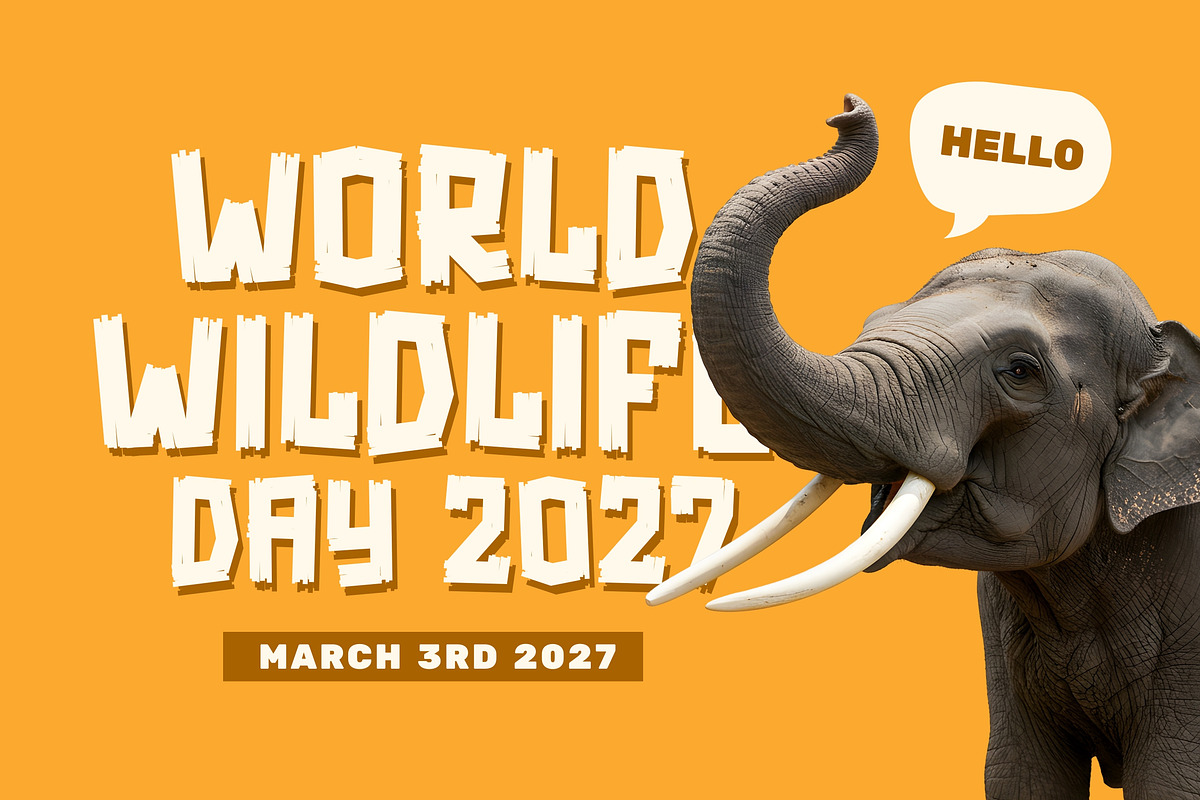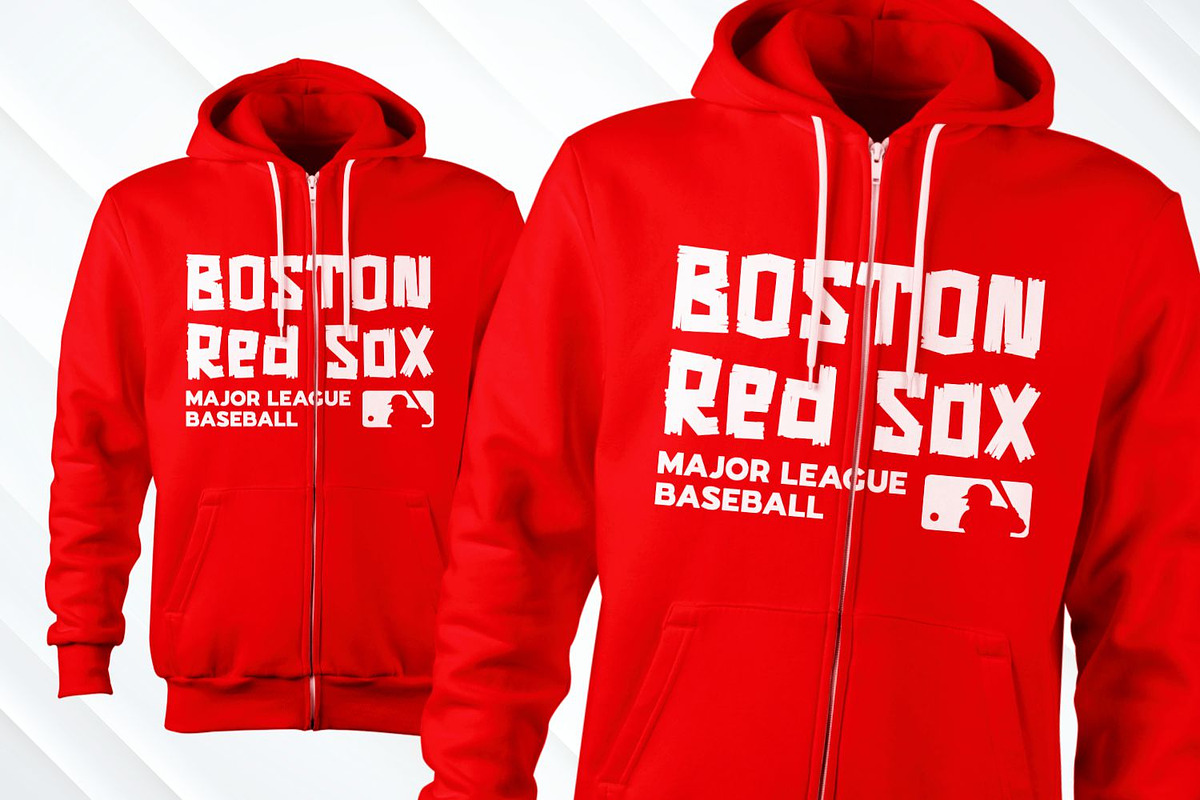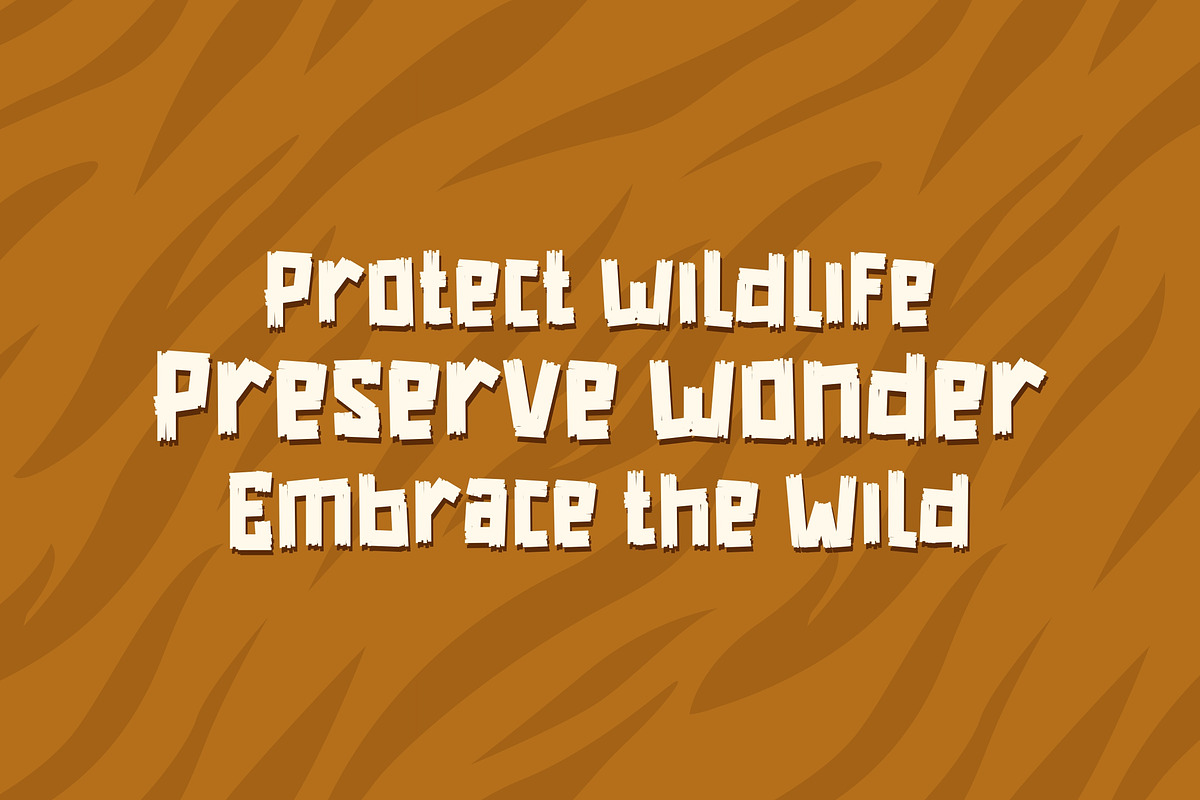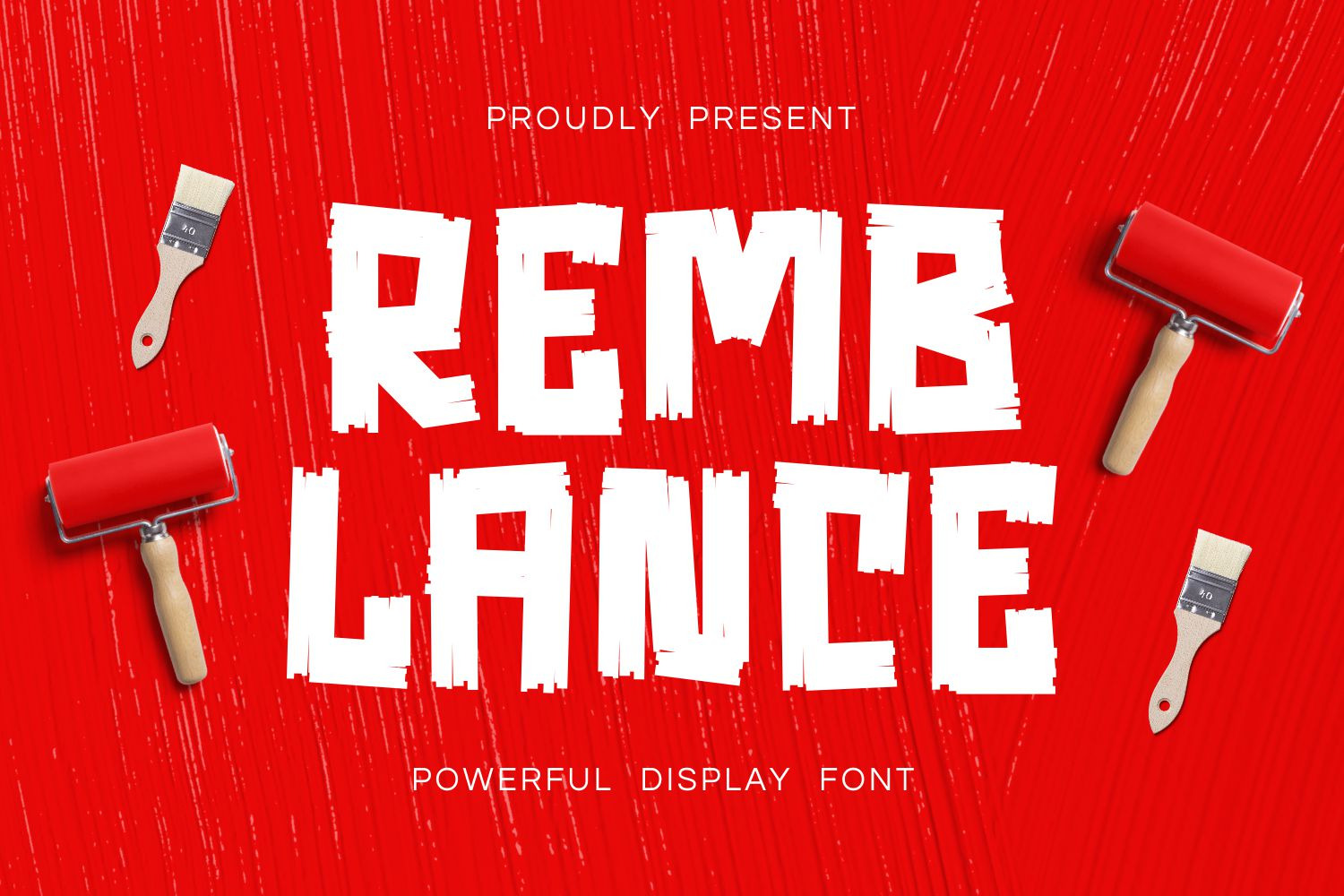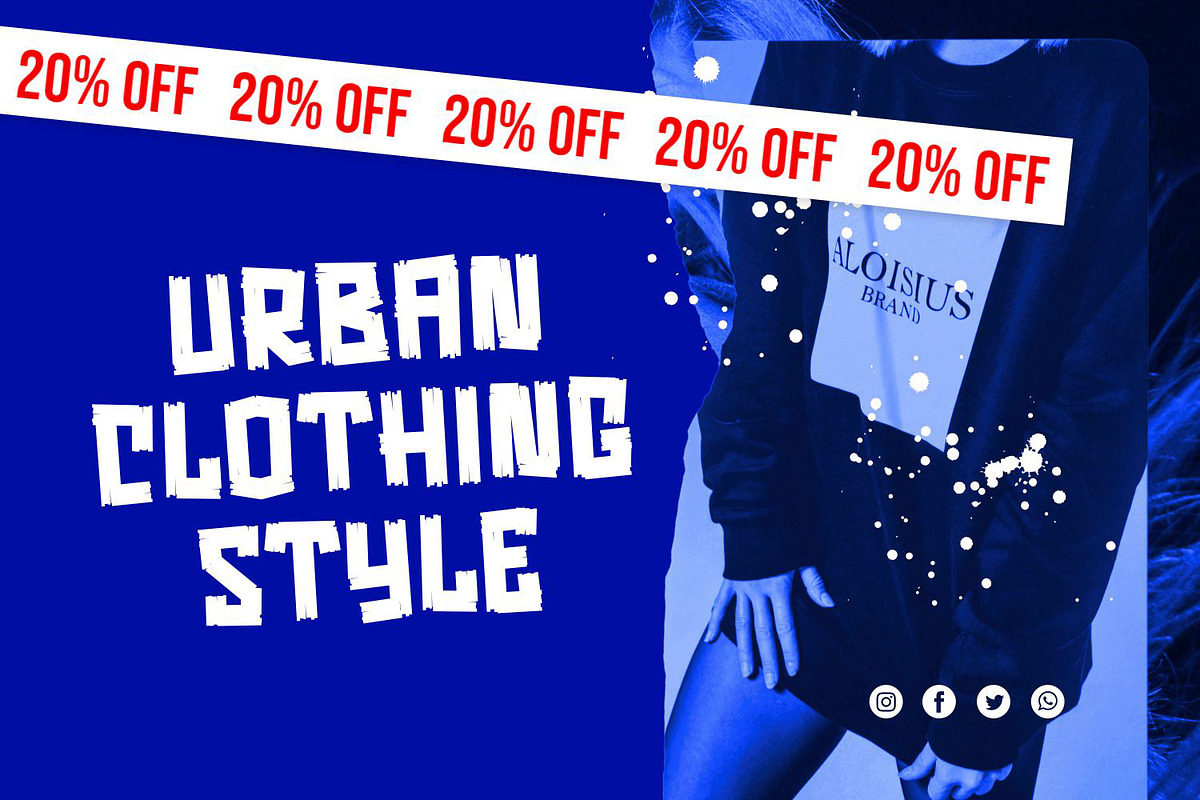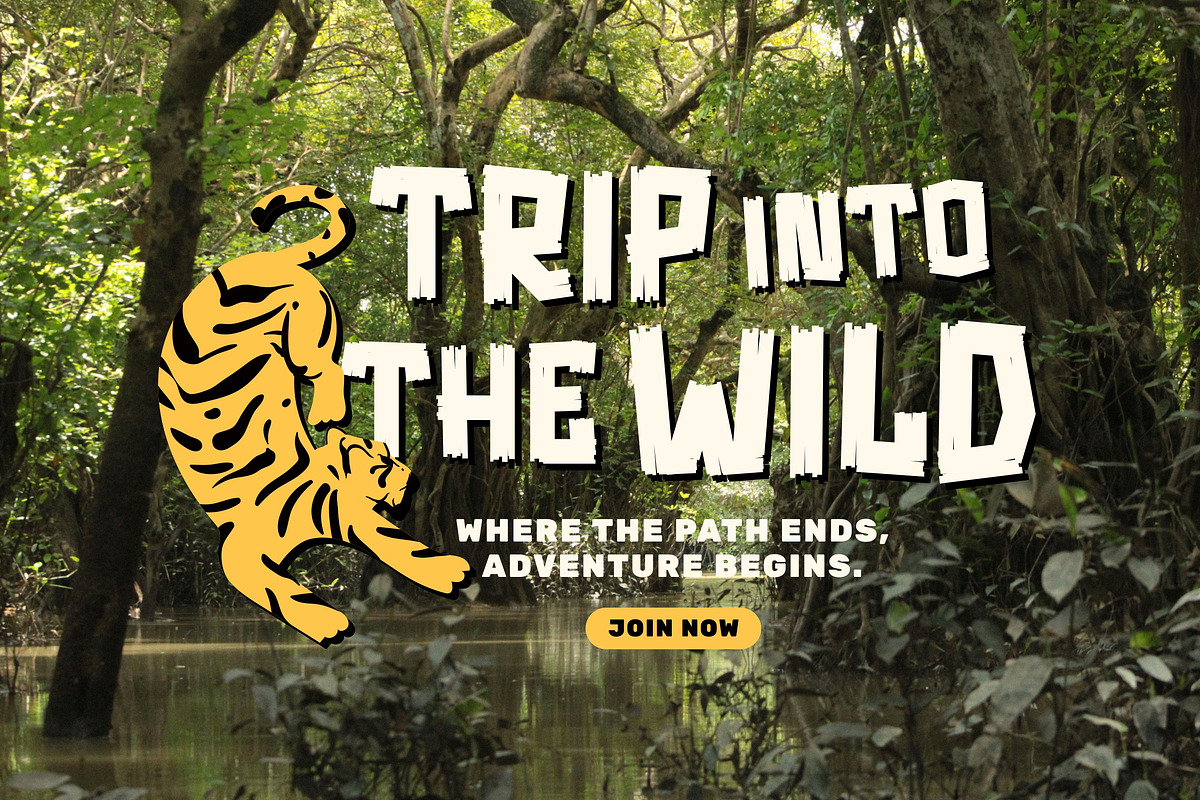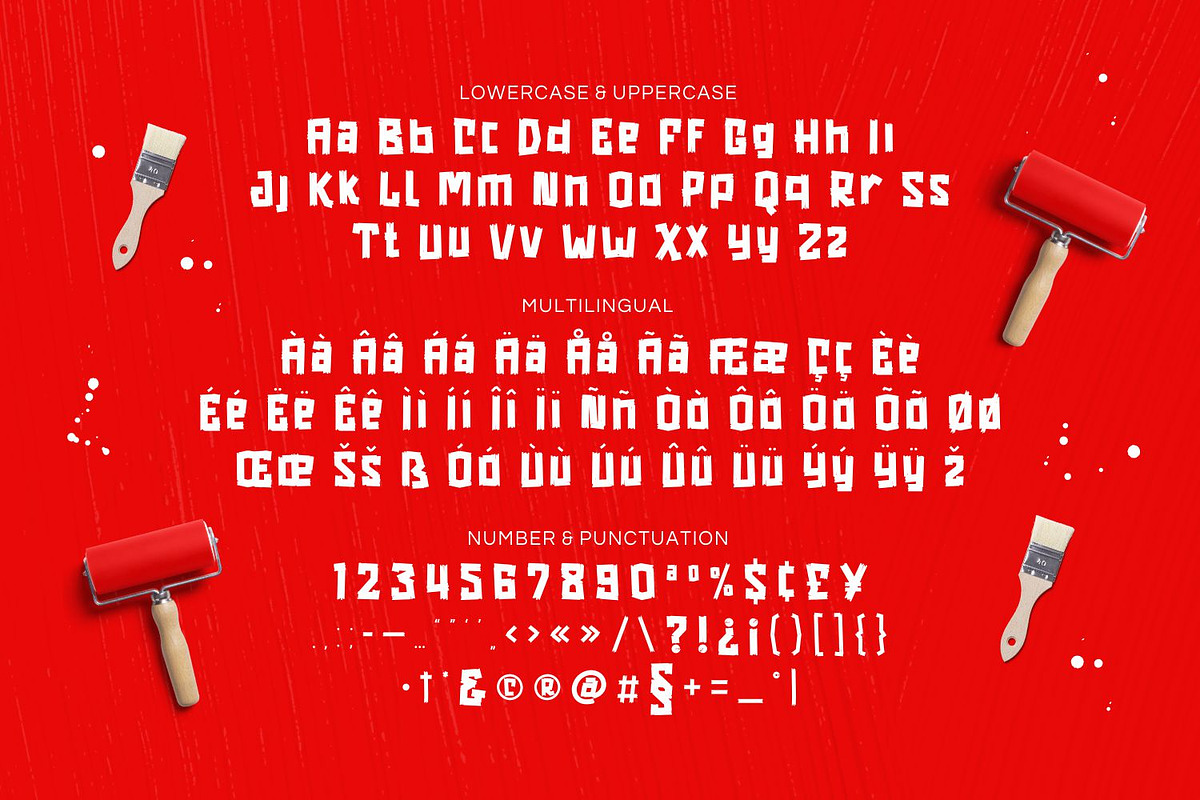
Remblance - Playful Paint Font
Remblance is a playful paint font crafted with a raw, hand painted aesthetic. Each letterform mimics the texture of brush strokes and roller paint.
Calibrated for big type sports graphics, streetwear, urban fashion, event posters, adventure campaigns, environmental awareness graphics, and campaign hero lines.
- Uppercase and Lowecase Characters.
- PUA Encoded Characters.
- Numerals and Punctuations.
- Alternates and Ligatures.
- Multilingual Support.